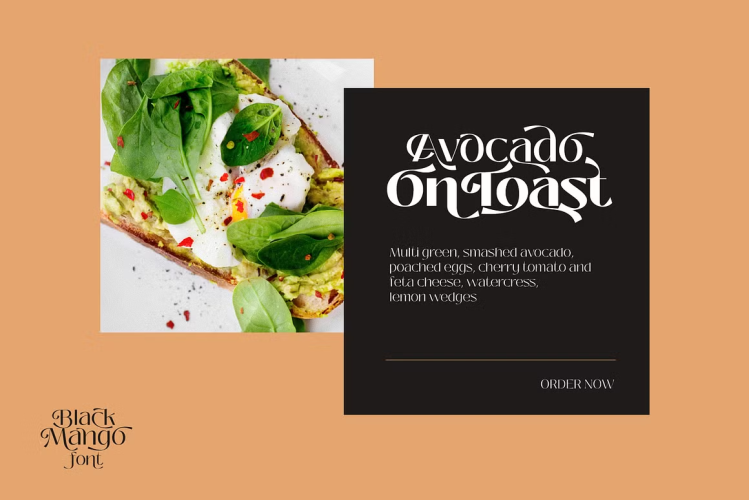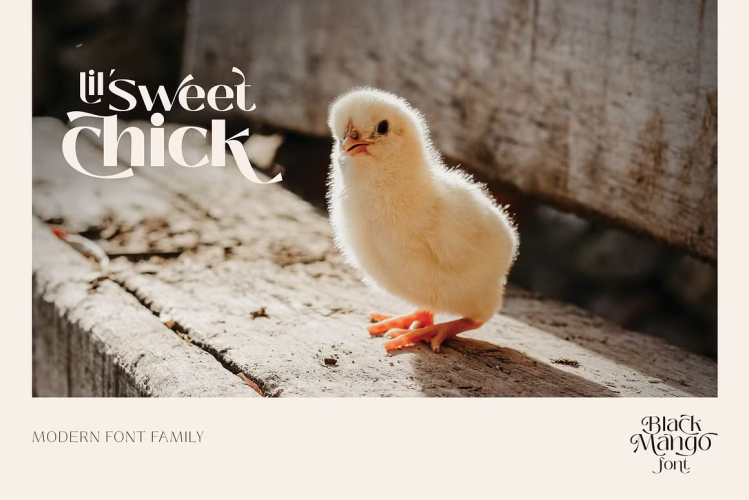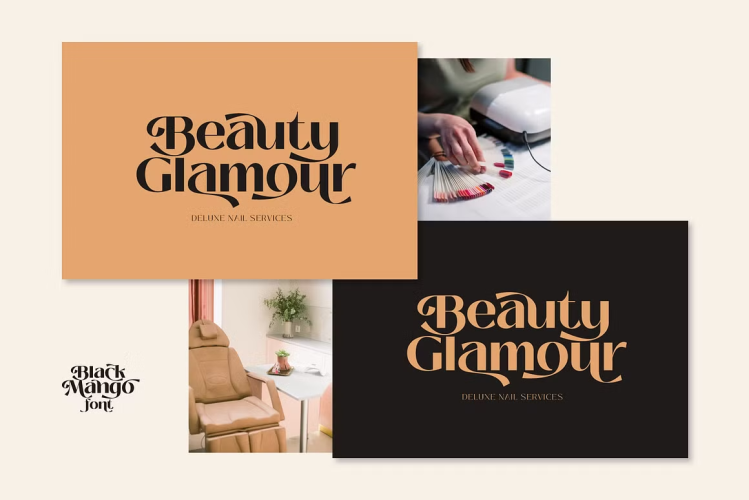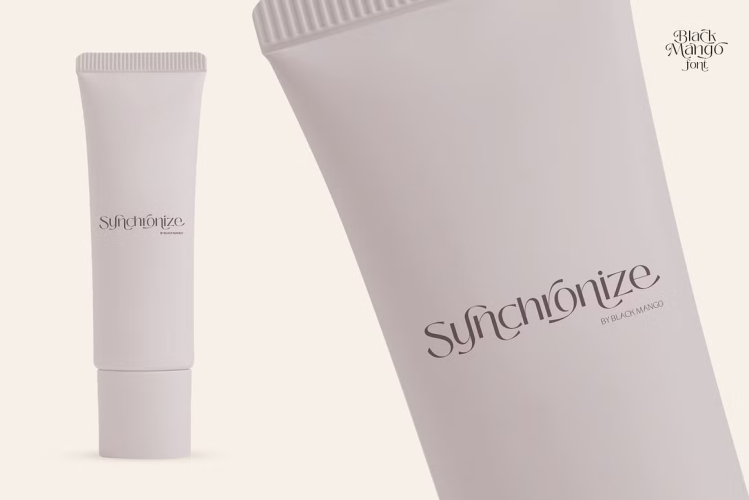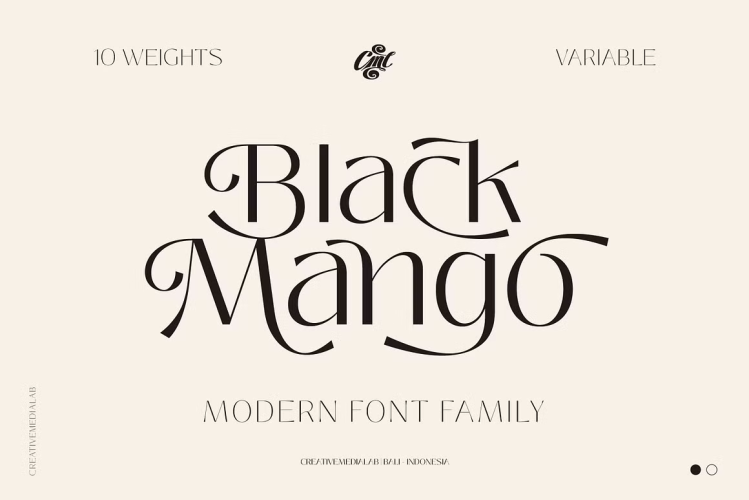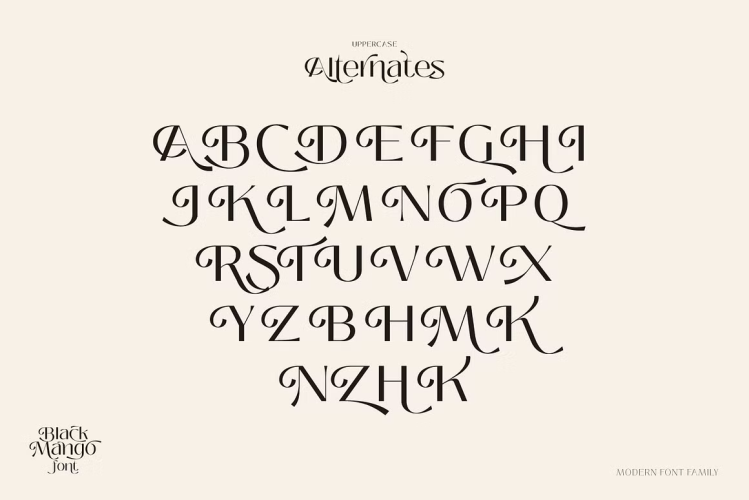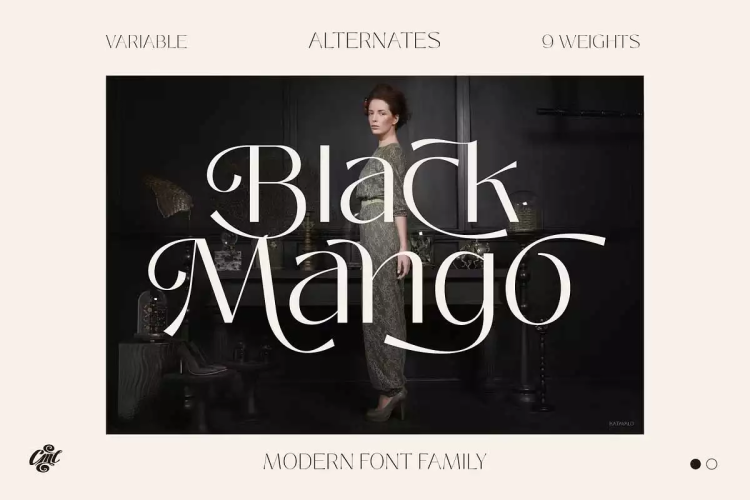
Black Mango Font
The Black Mango font is a modern family of different types that give designers much freedom and various possibilities. This universal font, with nine weights and many alternates to select, provides a perfect typeface family for a design project that can be branding, web design, logos, or many more.
It is important to emphasize that the Black Mango font has a clean and modern style and is perfectly adapted to create a professional-looking interface. The magazine’s uncluttered yet creative design appeals to digital and print users.
Among the many features of the font is its variable formats. This feature allows you to tailor the font to your preference in weight and style. Moreover, the font family has also been designed considering multilingual support, and its numeral and currency symbols allow it to be used globally.
Whether developing a minimalist logo, building an appealing website or crafting a sophisticated branding campaign, the current family of colours reflects the versatility and functionality you need to accomplish the job. With a comprehensive array of weights and alternate characters, this font family has a strong visual impact on any project.
Black Mango Font is a Serif Fonts font that brings a professional and versatile look to your projects. The Black Mango font is a modern family of different types that give designers much freedom and various possibilities.